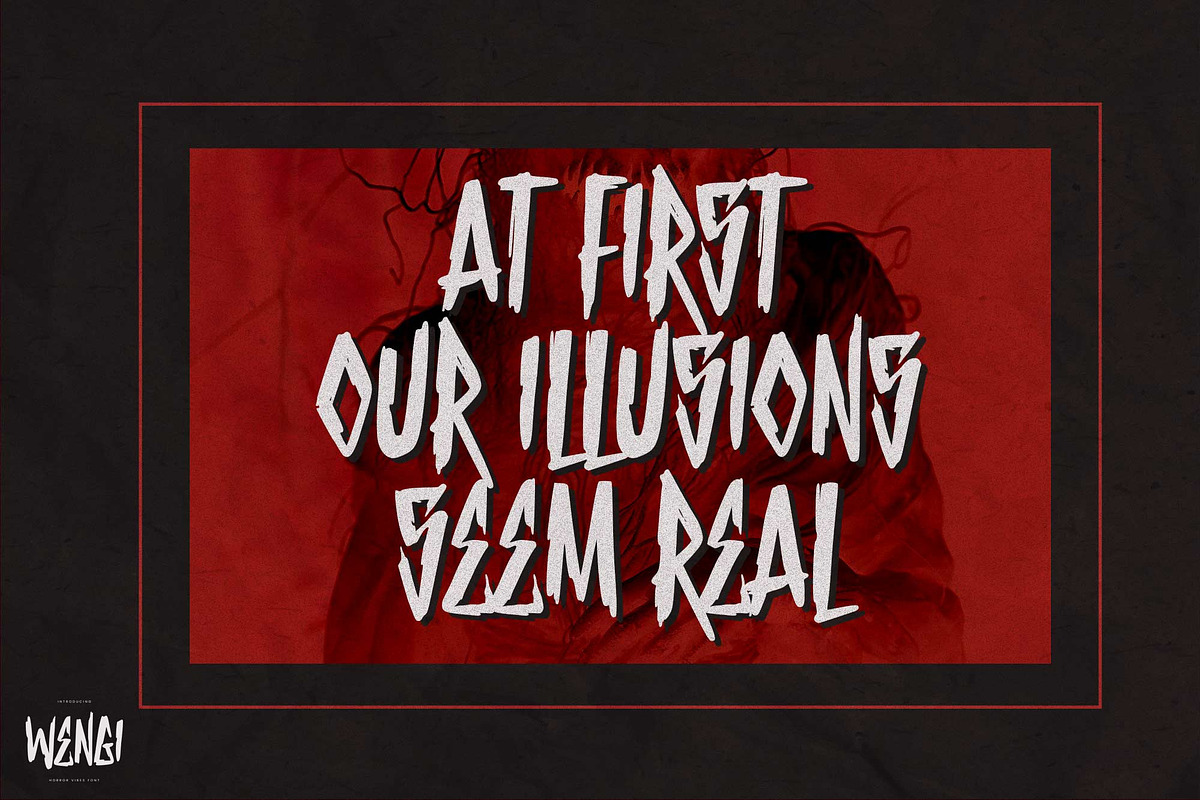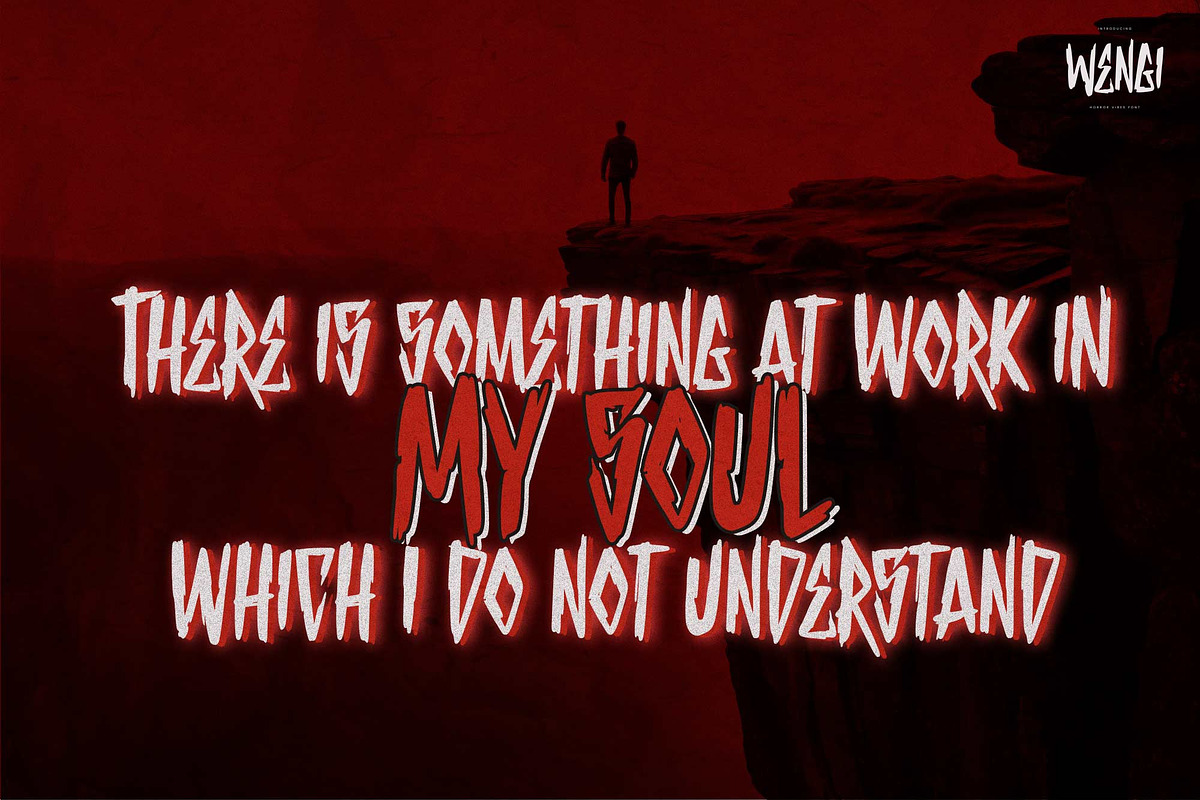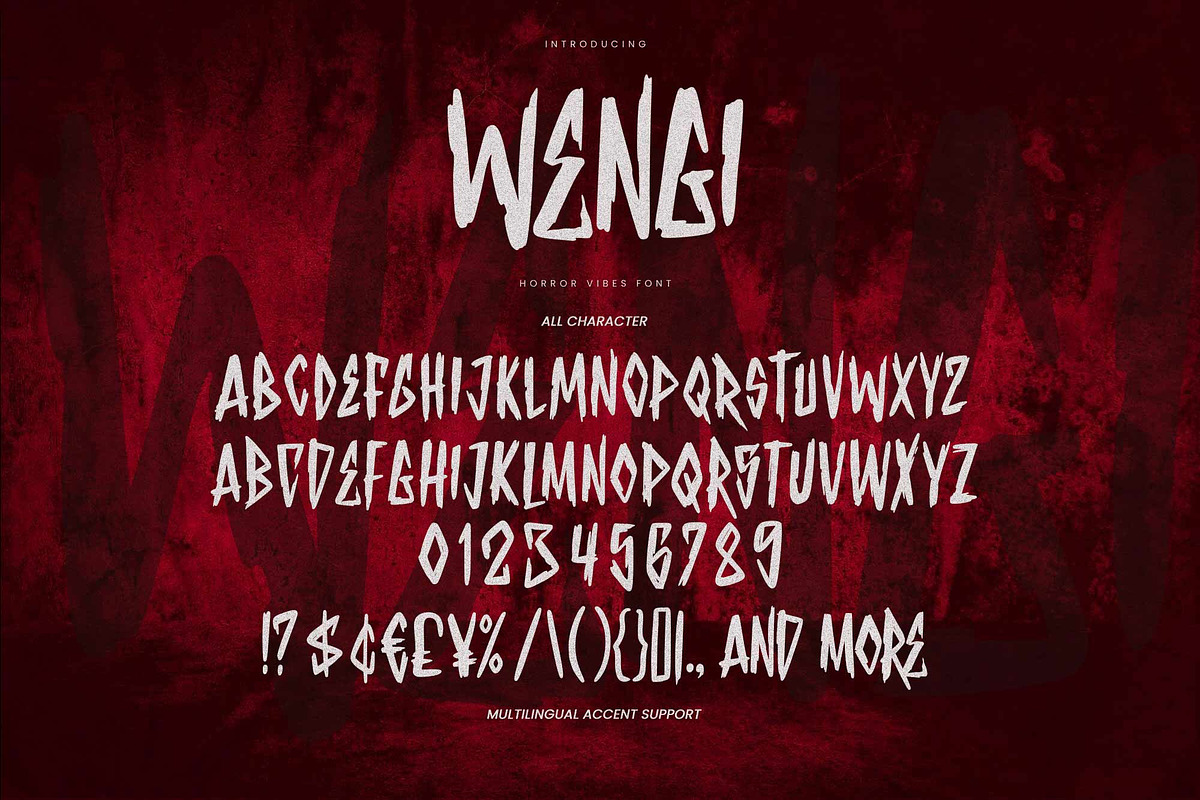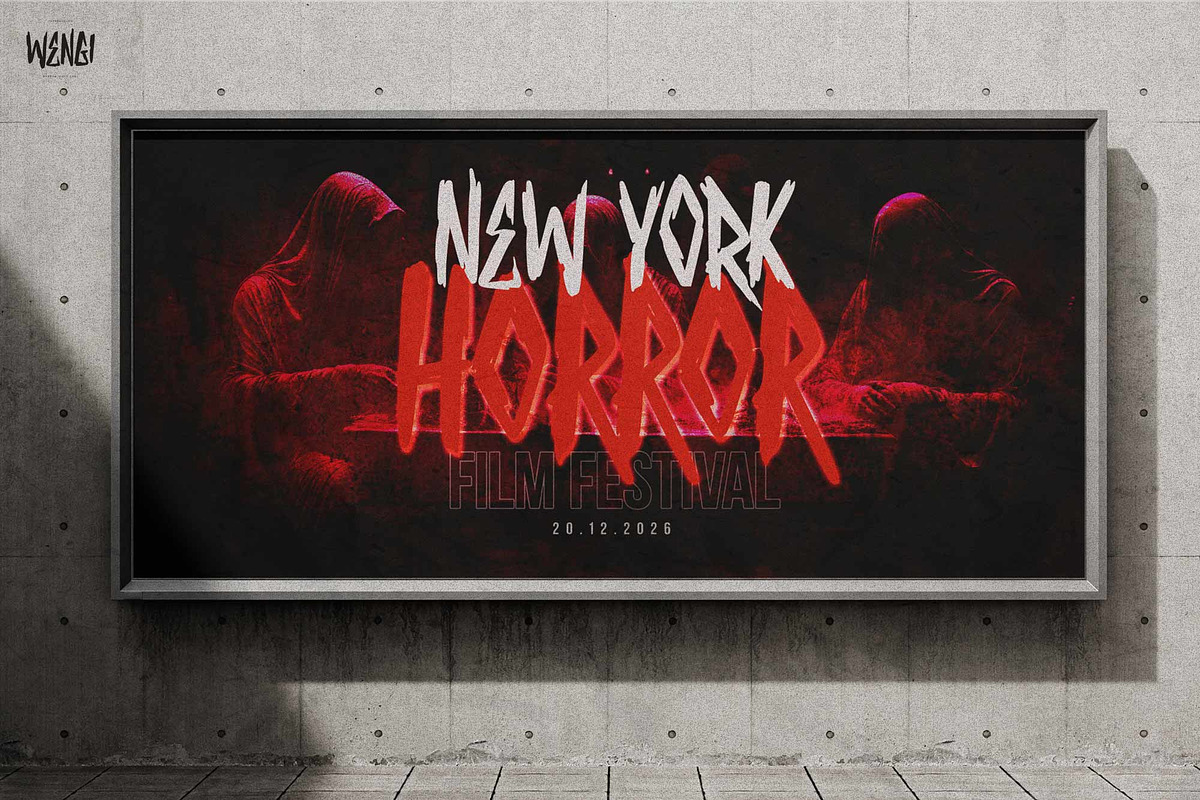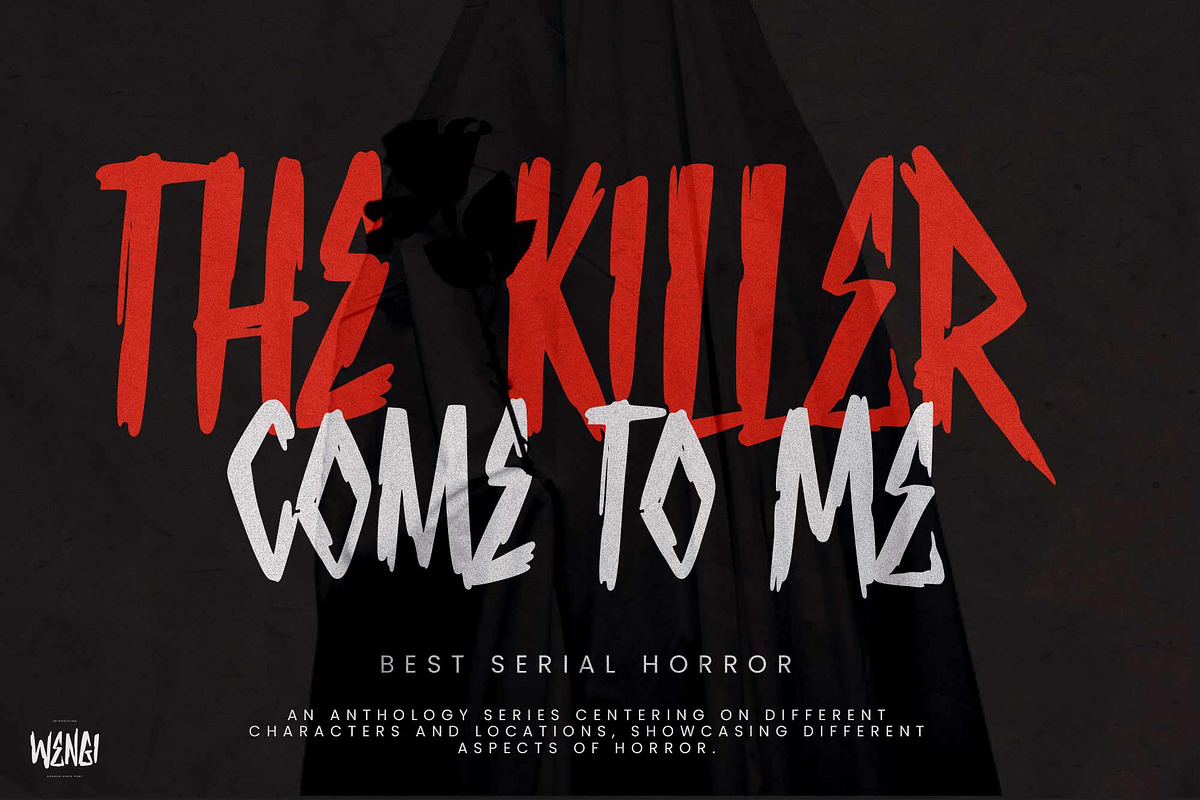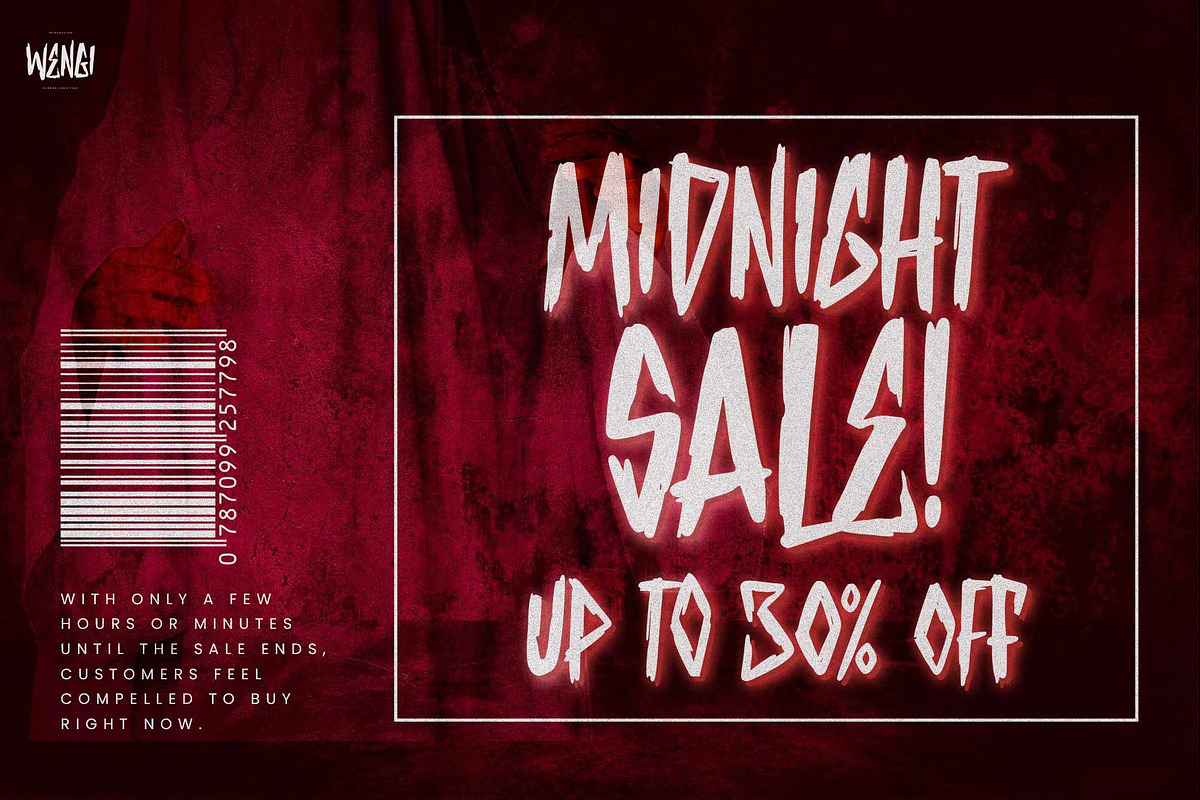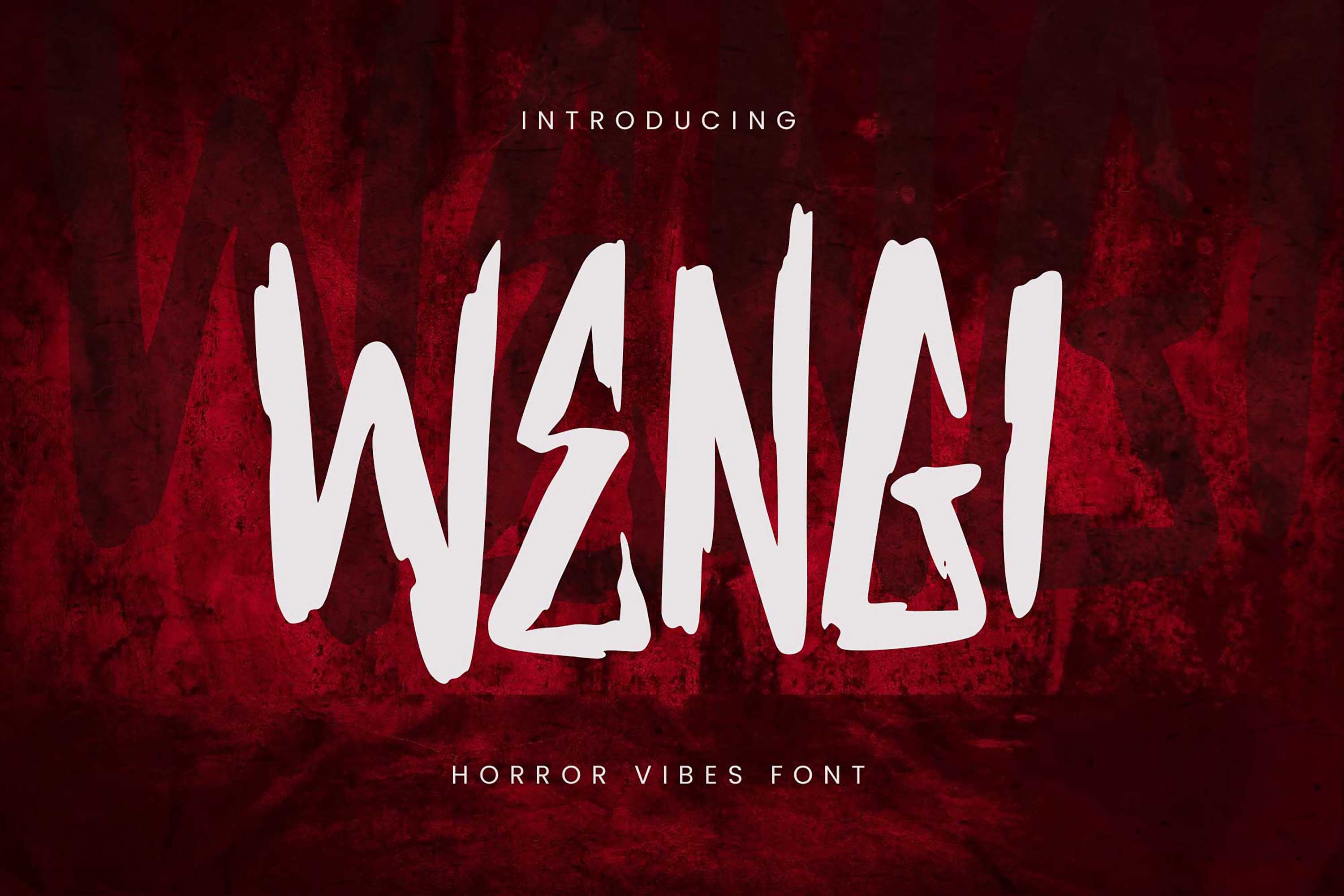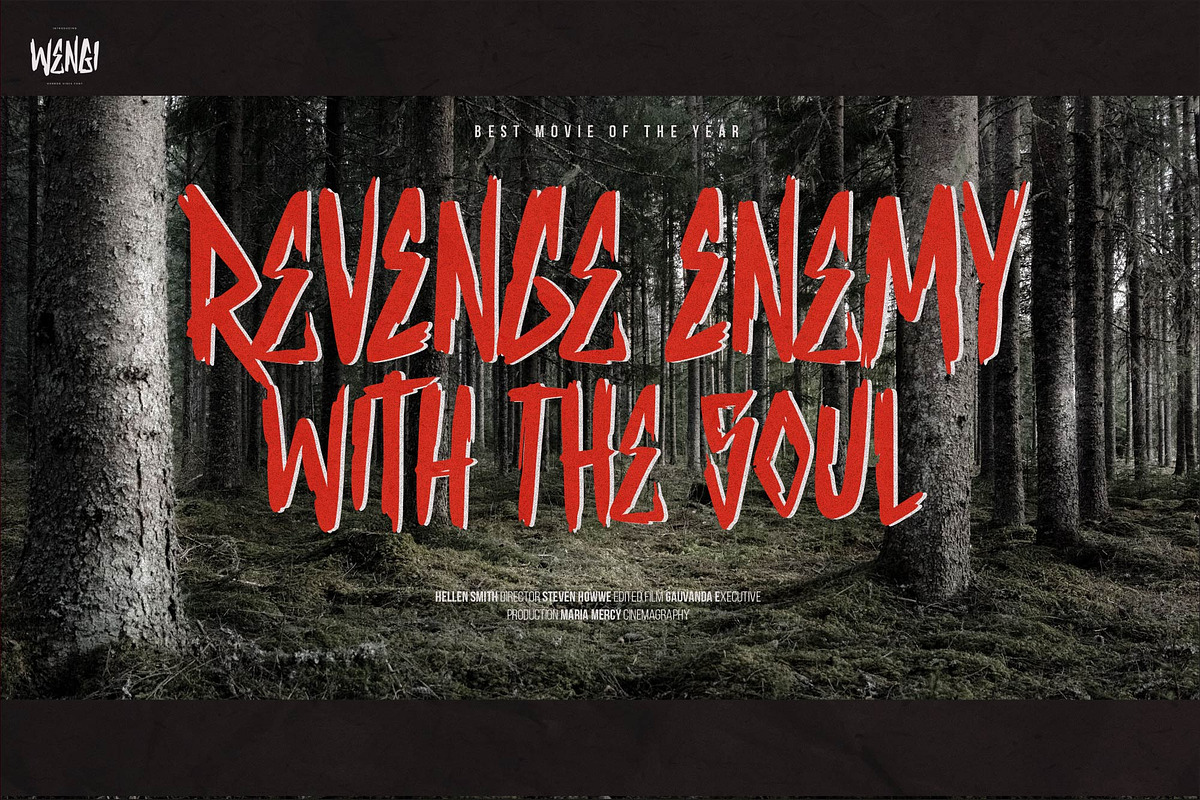
Wengi – Horror Vibes Font
Wengi This is a Horror Vibes Font, this is a handmade font with more alternates and unique texture, this font is perfect for making a strong statement in your designs.
Add the bold and authentic character of this Font to your next project and capture the essence of the minimalist aesthetic.